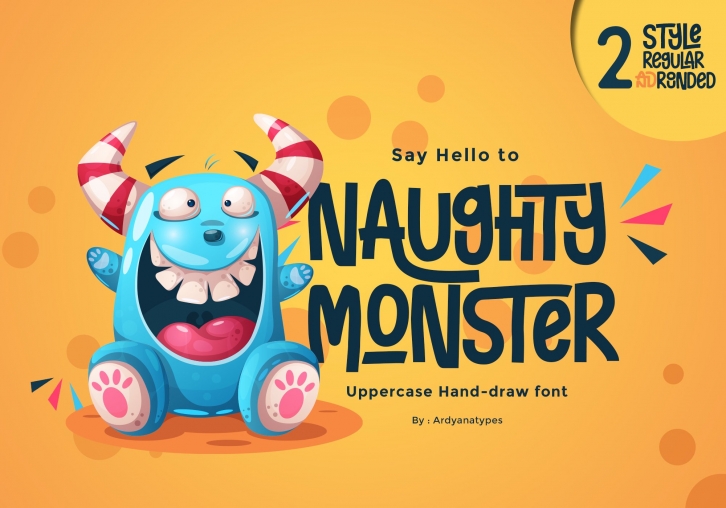
Introduce Naughty Monster
Say hello to Naughty Monster, Naughty Monster is a hand made font that has many interrelated characters. Naughty Monster has an opentype feature that will automatically change each character into ligatures. so it becomes a unique character. Naughty Monster has 2 different styles including regular and rounded. This is made to give a choice of each style. Naughty Monster has a strict style, but still gives a cheerful impression, making it very easy to read and apply in all design projects such as poster designs, clothing, logos, quotes, album covers, books, business cards, product designs, and many more design projects. Naughty Monster has its own charm when used. We make this font look funny, easy to remember, and easy to use.